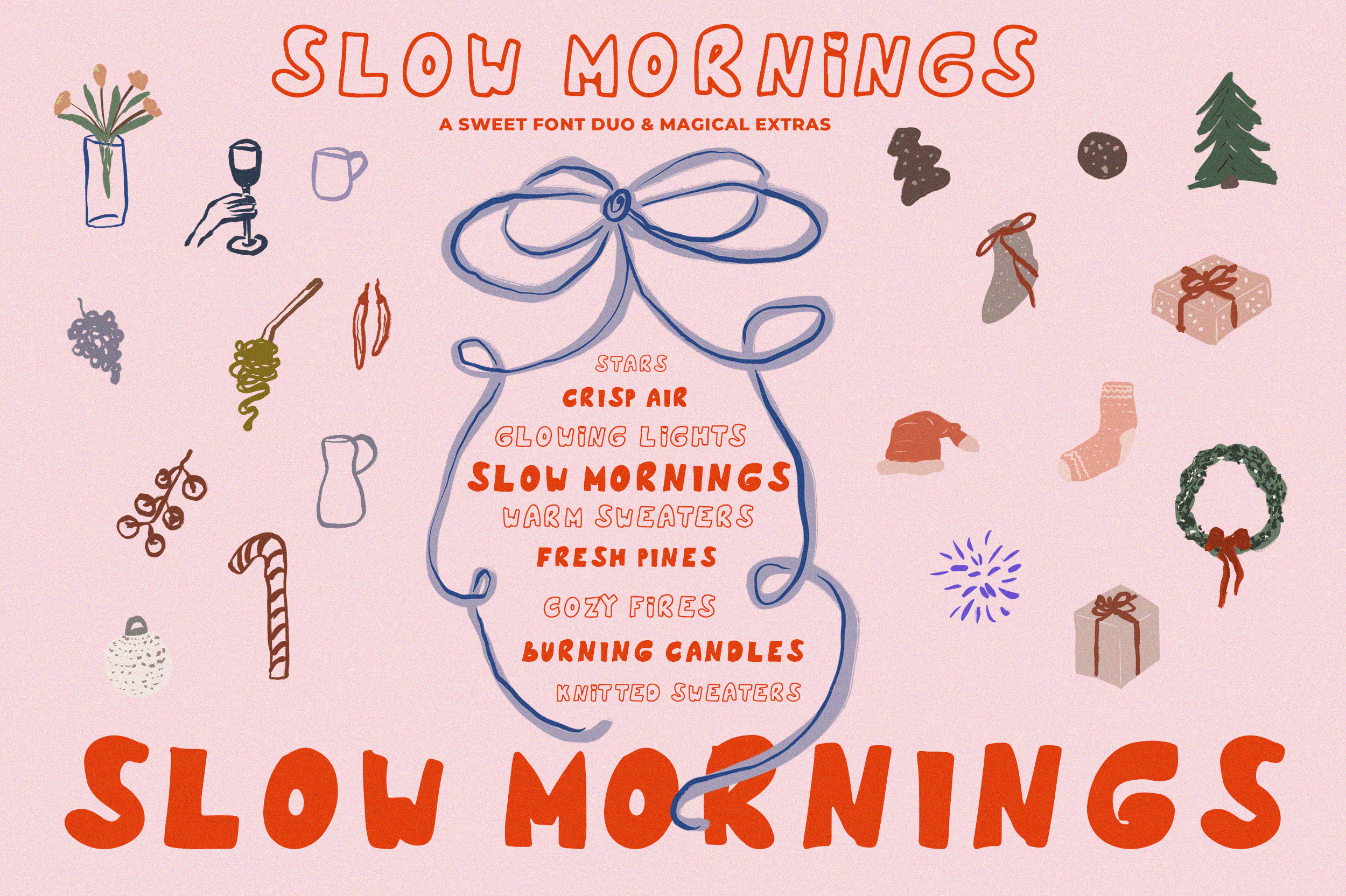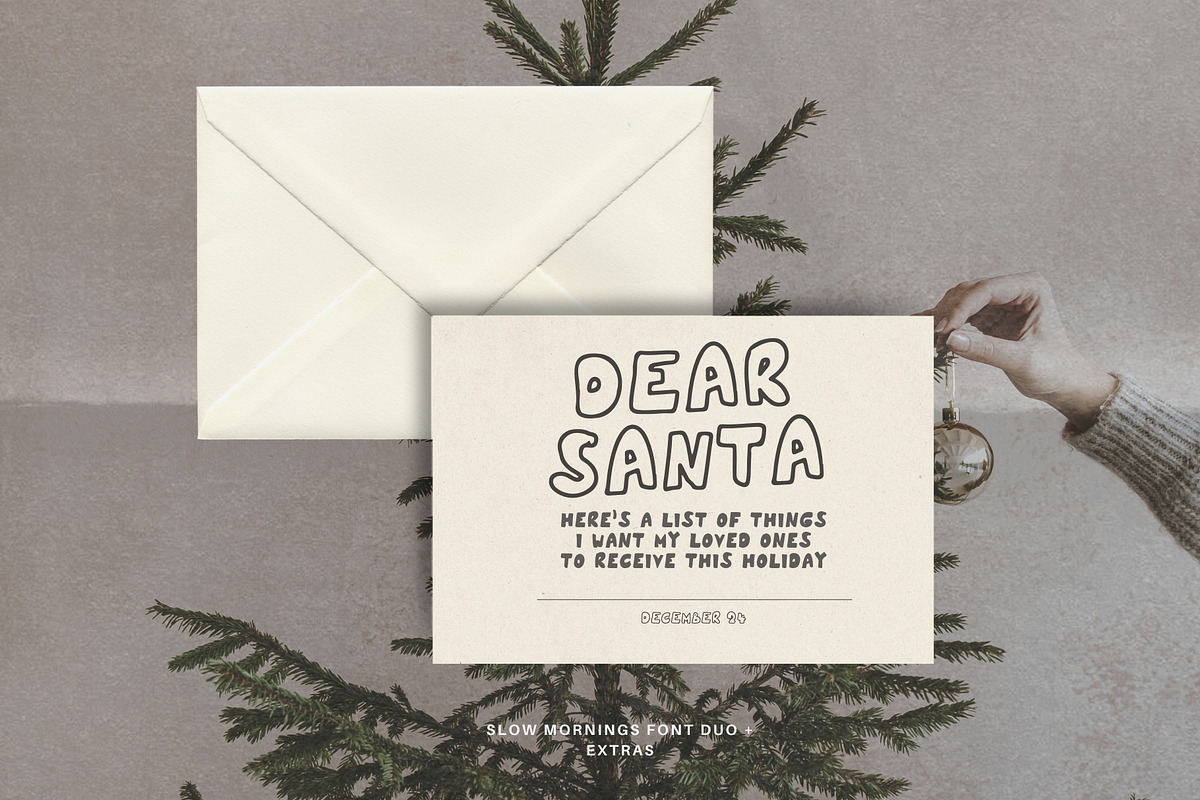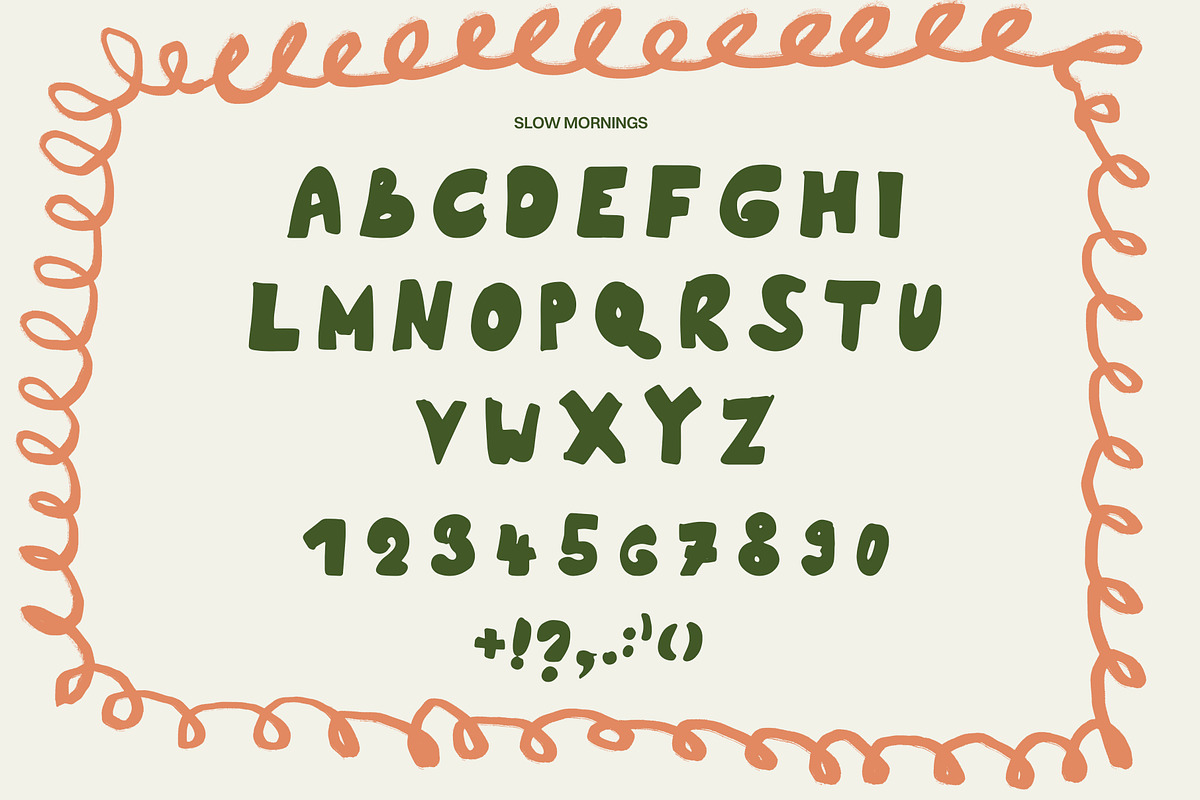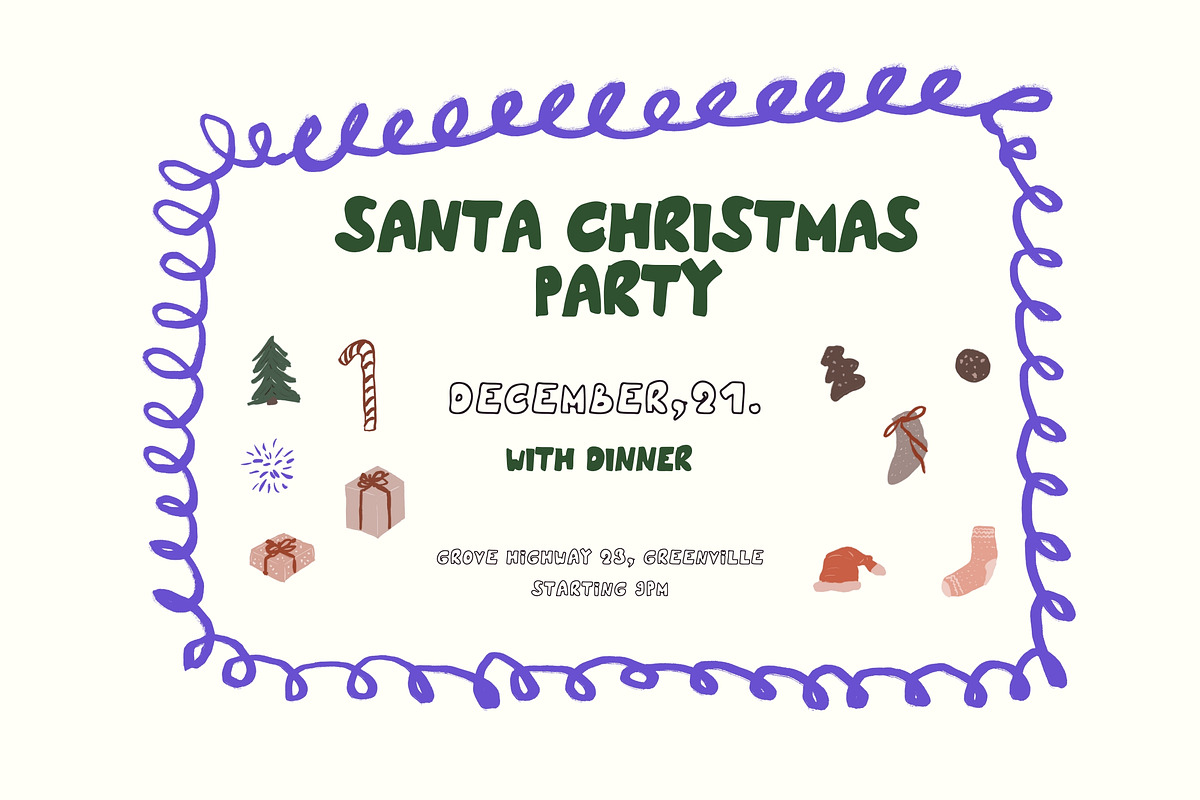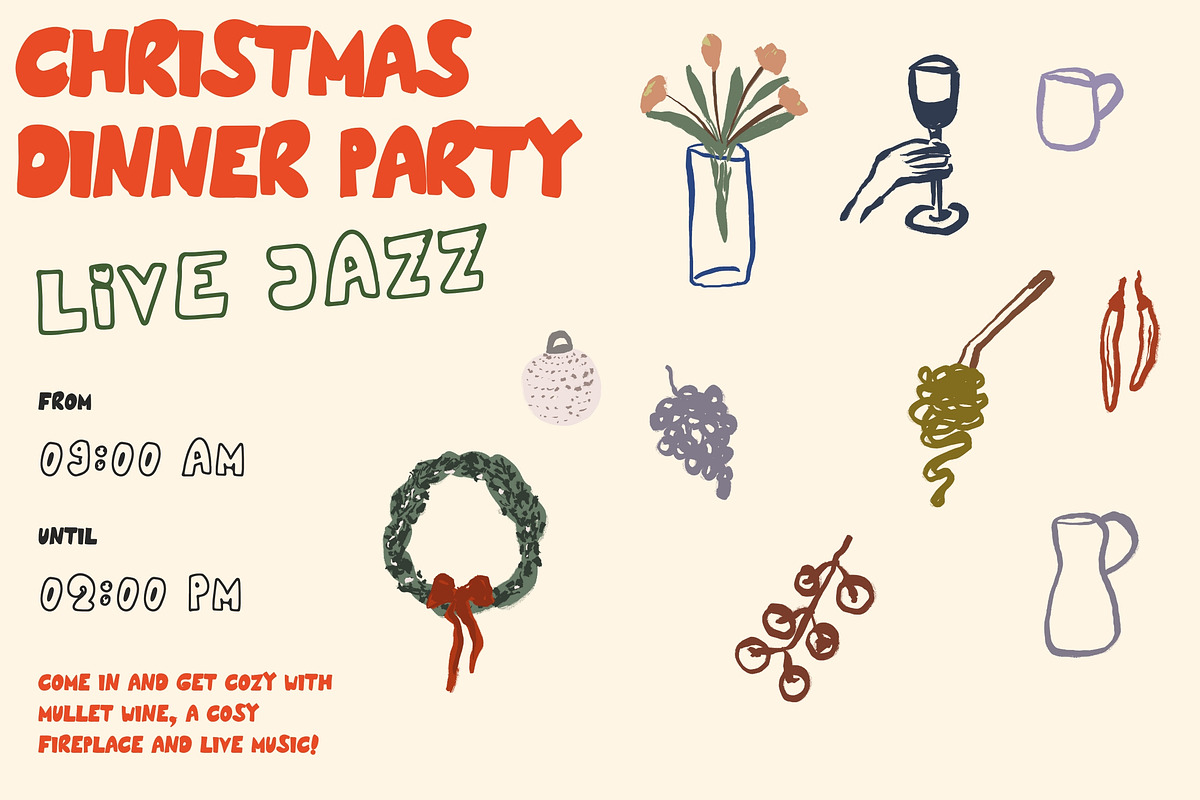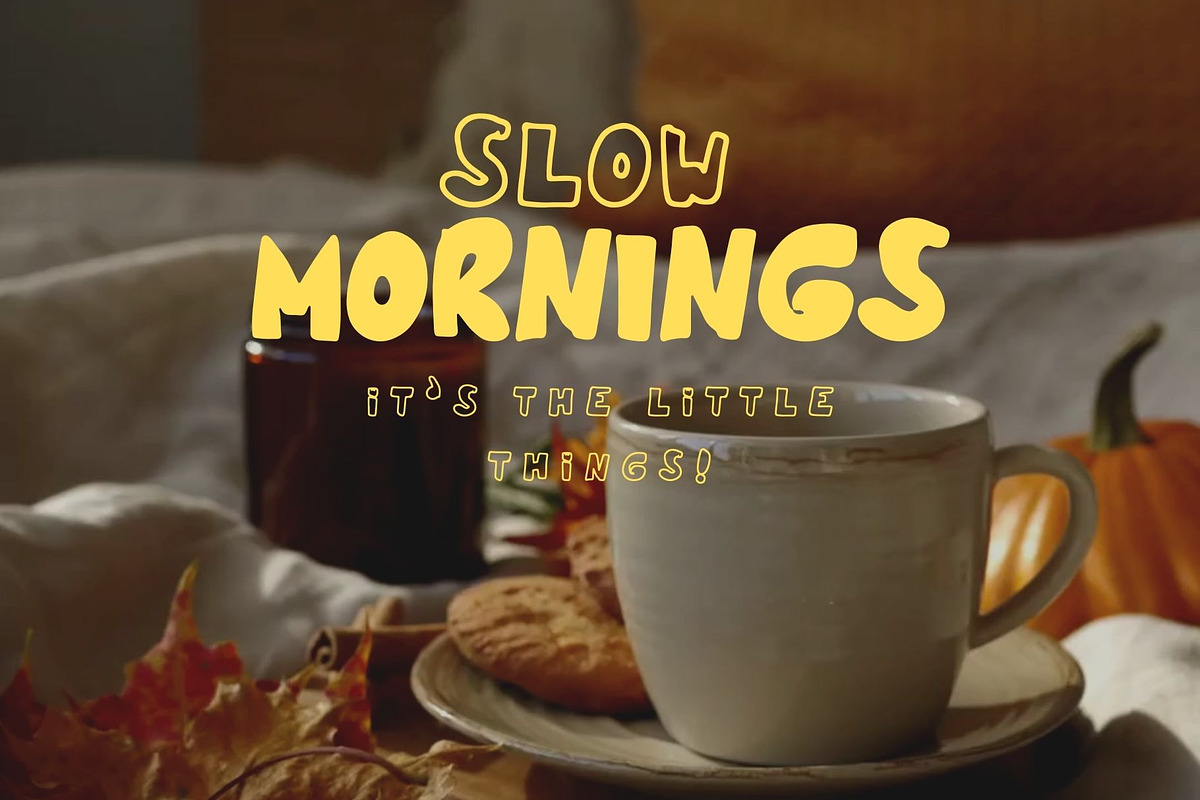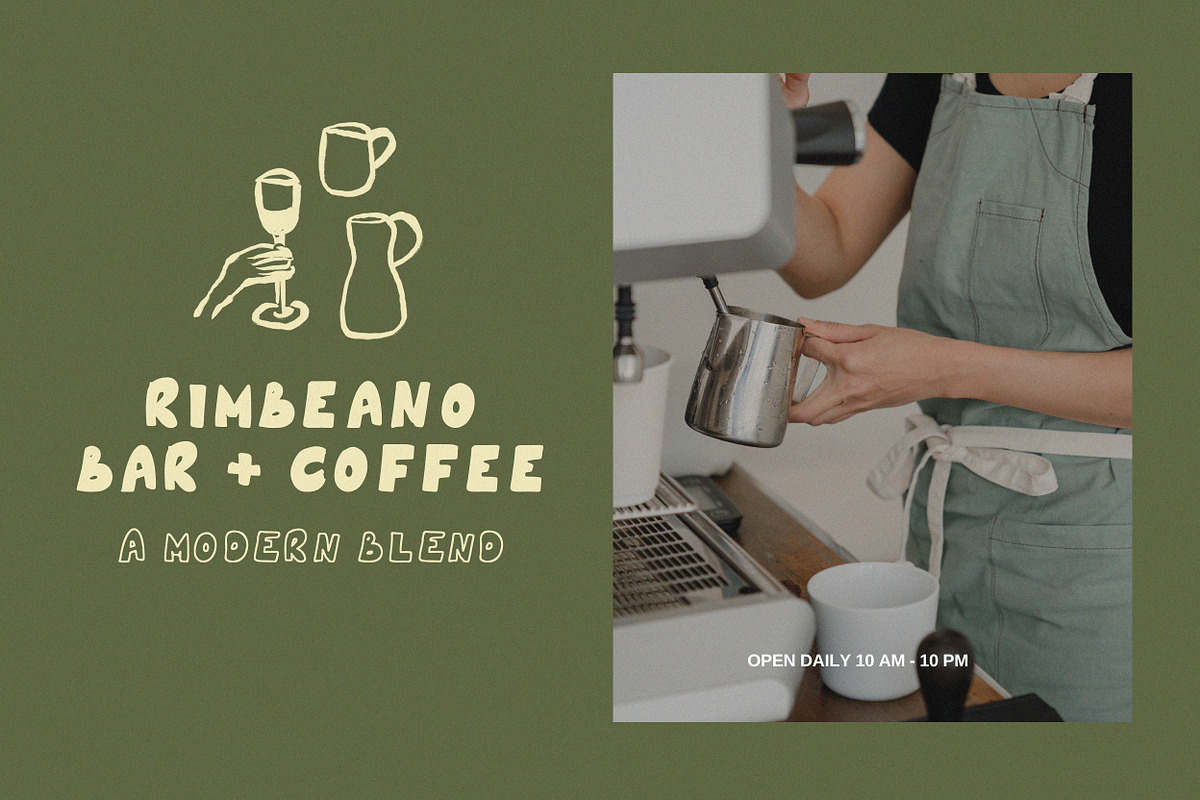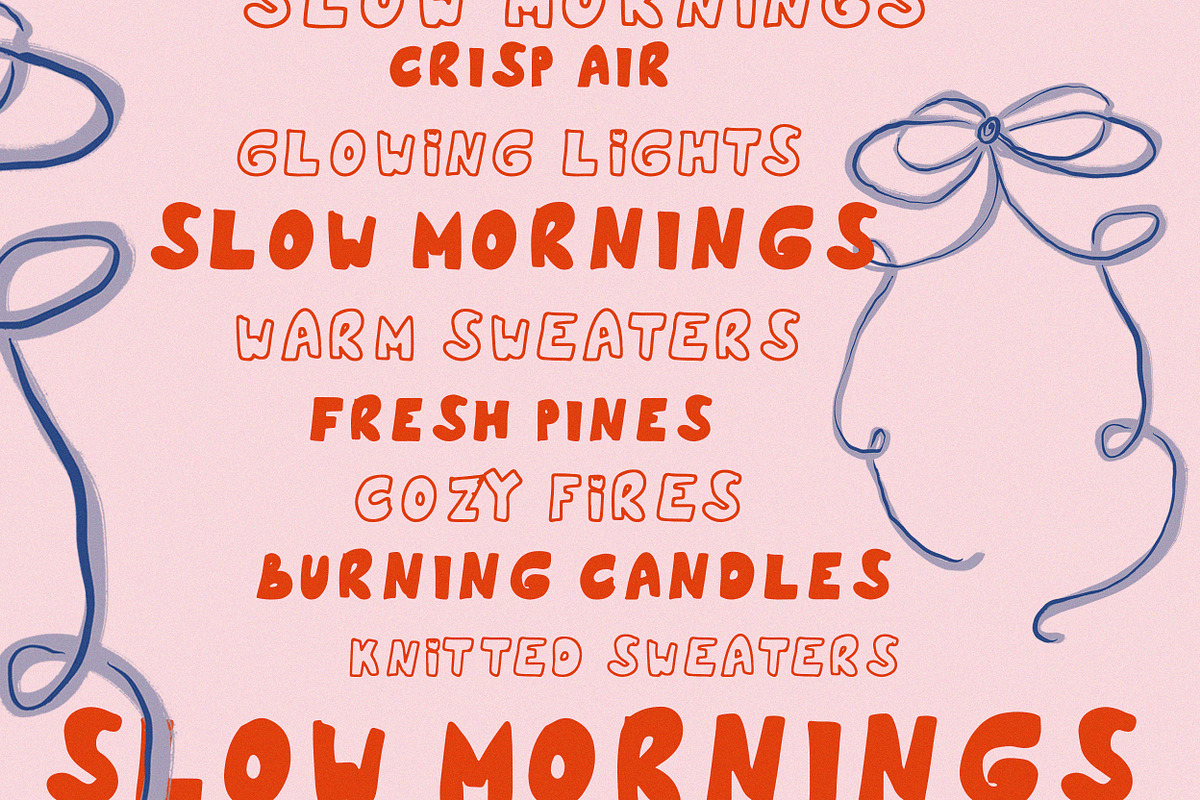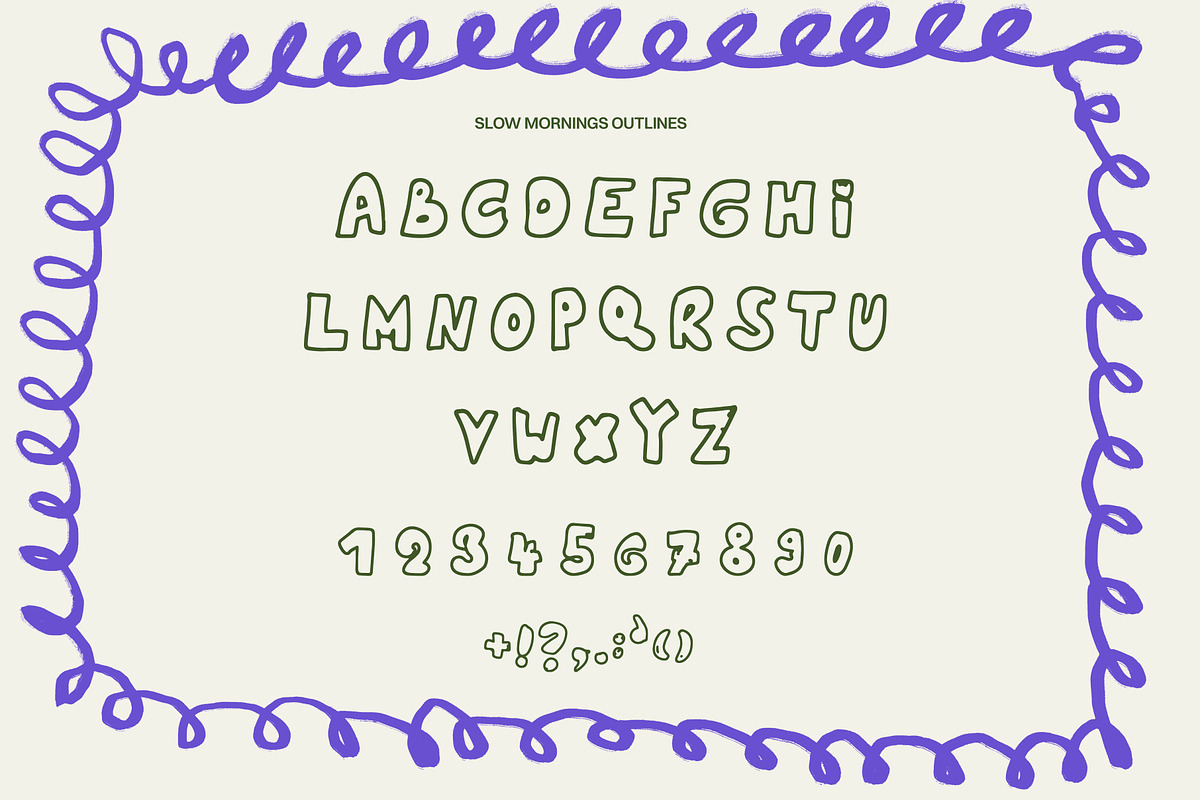
Handmade Font Duo + Christmas Icons
Time to shine! This bold handwritten font duo comes in a fill as well as outlined version. The beautiful outline font creates that witty and quirky look and the bold version adds to that authentic and handcrafted charm. A beautiful duo alongside lots of magical extras: Hand drawn Christmas icons like colorful handmade line art, wine glasses, food icons and wrapped gifts, a Christmas tree, Santa hat and cookies. The perfect set for your Christmas cards!
- 50+ sweet hand drawn Christmas and miscellanous icons as extras
This set is perfect for Christmas cards and Christmas prints, Holiday designs, Season's greetings, notes to Santa, handcrafted logo and branding and all designs that need an extra sparkle!
Create with sweet frames, ribbons and bows and add a witty, playful and enchanting touch to your early Holiday art. Happy creating! :)